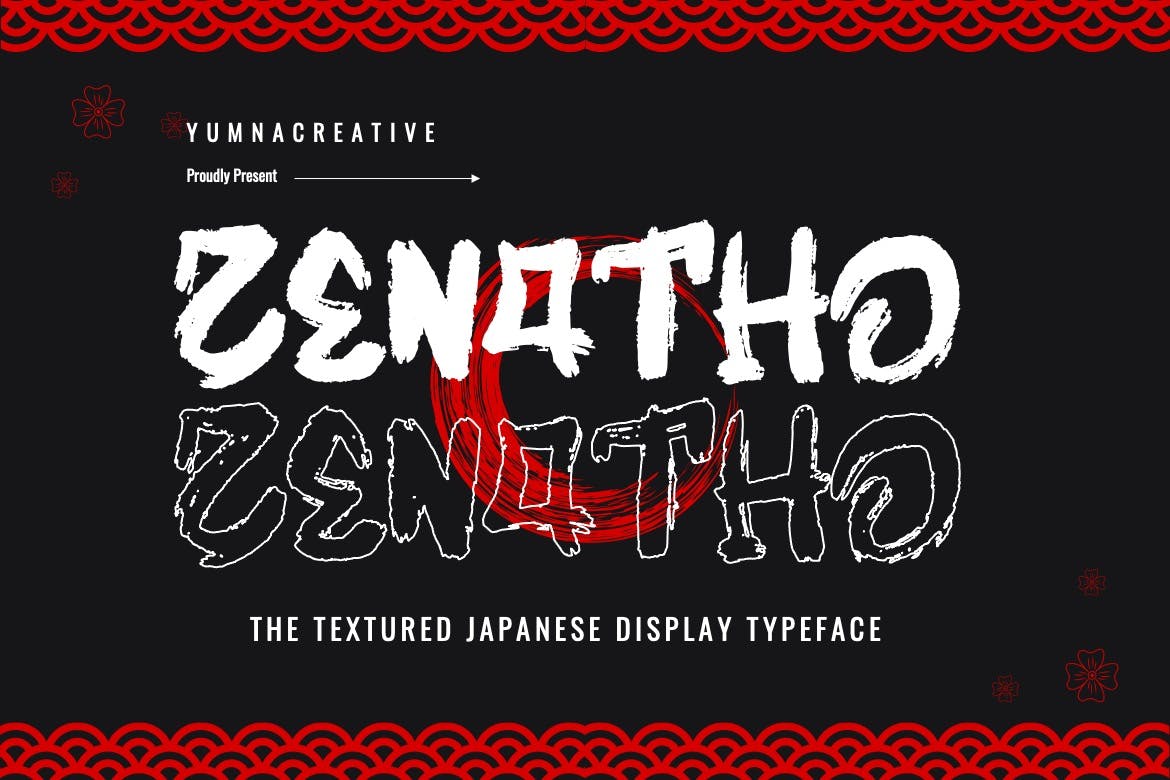
Zenatho - Textured Japanese Font
The Zenatho - Textured Japanese Font is perfect for anime titles, manga artwork, Japanese restaurant branding, martial arts promotions, zen meditation designs, traditional craft packaging, cultural event posters, and modern Japanese gaming interfaces.
What makes Zenatho - Textured Japanese Font so exciting is its masterful integration of traditional Japanese design philosophy with contemporary textural innovation that creates a truly immersive cultural experience. This extraordinary typeface combines the spiritual essence of Japanese calligraphy with modern surface textures that evoke traditional materials like weathered wood, aged paper, and stone carvings. The font's sophisticated texture work creates visual depth and tactile appeal while maintaining the harmonious balance and mindful spacing that defines authentic Japanese typography. Its distinctive character brings both cultural authenticity and contemporary edge to designs, making it perfect for projects that need to bridge Eastern heritage with modern aesthetic sensibilities.
The Zenatho - Textured Japanese Font family includes diverse variations that showcase the rich spectrum of Japanese textural artistry and design traditions. The collection typically features multiple texture styles from subtle grain effects to bold weathered surfaces, each preserving the essential Japanese aesthetic principles of balance and harmony. Many versions include alternative characters with enhanced textural details, decorative elements inspired by traditional Japanese patterns like sakura and bamboo, and comprehensive character sets supporting both Latin and Japanese scripts for authentic cross-cultural applications.
The font's remarkable adaptability excels across all digital and print mediums, from modern web applications to traditional packaging design. Its carefully engineered textural elements maintain visual impact and clarity at various sizes while preserving the distinctive Japanese aesthetic that makes it so compelling to global audiences seeking cultural depth and authenticity.
Creative professionals worldwide trust this innovative textured font for projects requiring sophisticated Japanese design elements and contemporary textural appeal. Whether developing brand identities for modern Asian enterprises, creating promotional materials for cultural institutions, or designing immersive digital experiences for entertainment properties, this font delivers the perfect synthesis of traditional Japanese wisdom and modern design innovation.